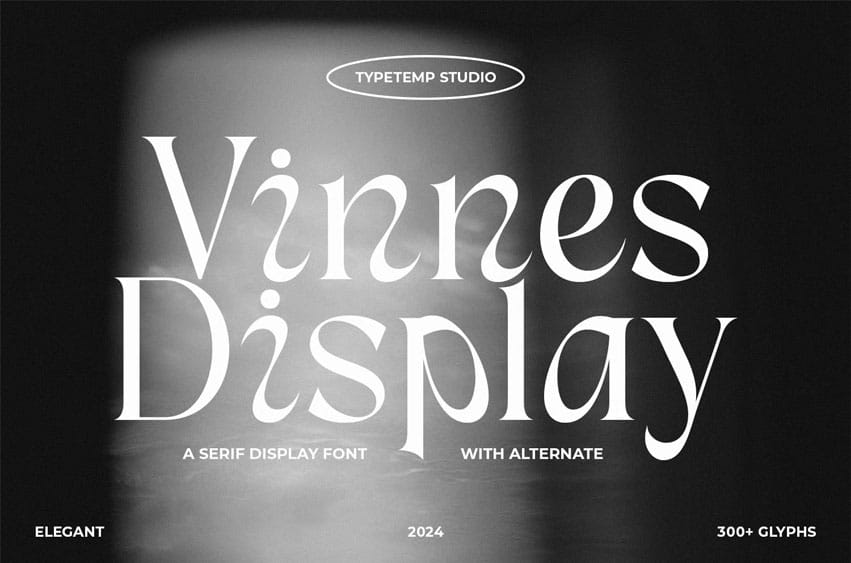
Vinnes Display Font Inspire some Elegant Display Classic comes with alternatives and ligatures, helps to create stunning logos, quotes, posts, and blog posts. branding projects, magazine imagery, wedding invitations, and much more.
- Unique Letterforms